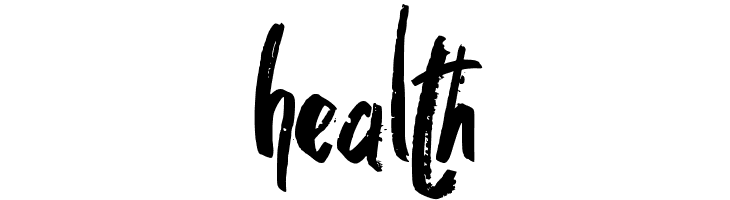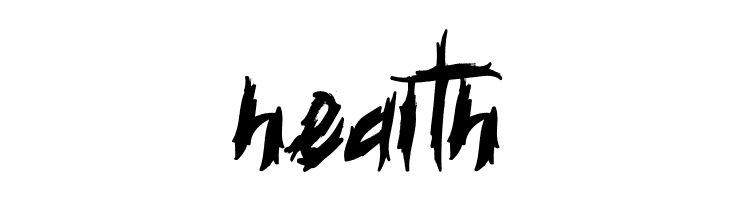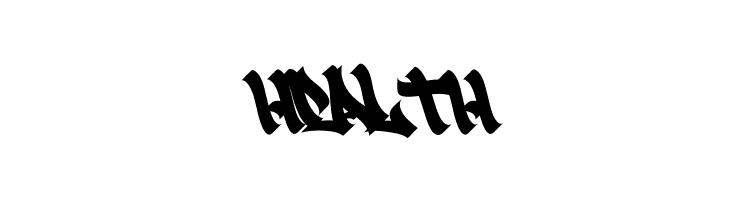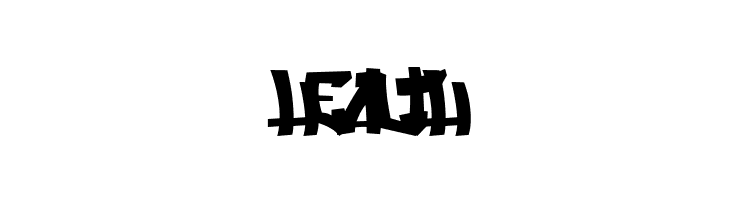
A bold, gothic-inspired font with sharp, angular lines and a rebellious style.
A bold, distressed font with a gritty, textured appearance.
A bold, brush-stroke font with an energetic and rebellious style.
A bold, hand-drawn font with a raw, edgy style.
A bold, jagged, and energetic font with a graffiti-like style.
A bold, distressed font with a punk rock, hand-painted style.
A bold, graffiti-inspired font with sharp, angular lines and dynamic flow.
A bold, graffiti-style font with angular strokes and urban flair.
A bold, brushstroke-style font with an edgy, rebellious aesthetic.
An edgy, thorn-like decorative font with a bold, rebellious style.